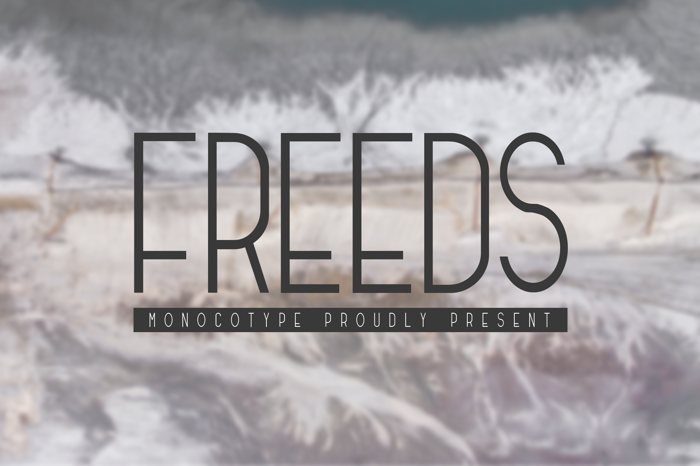
Freeds Font
Freeds is modern typeface that boasts clean lines and sharp edges. An extremely versatile font, Freeds is perfect for logos, weddings, invitations, quotes, advertisements, print, magazines, and more!